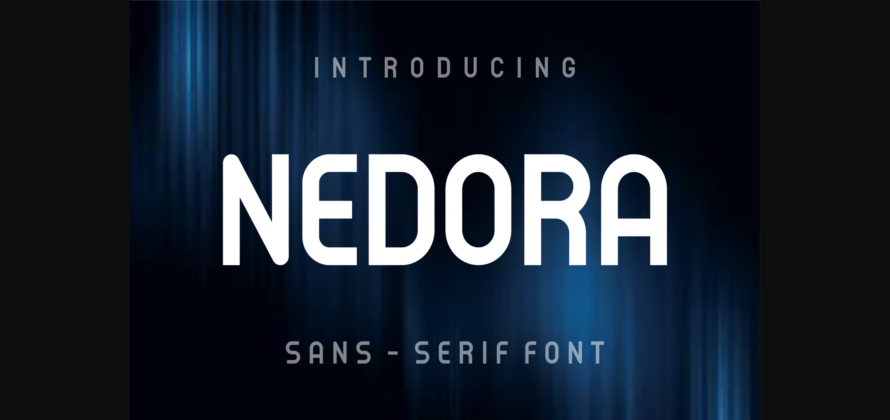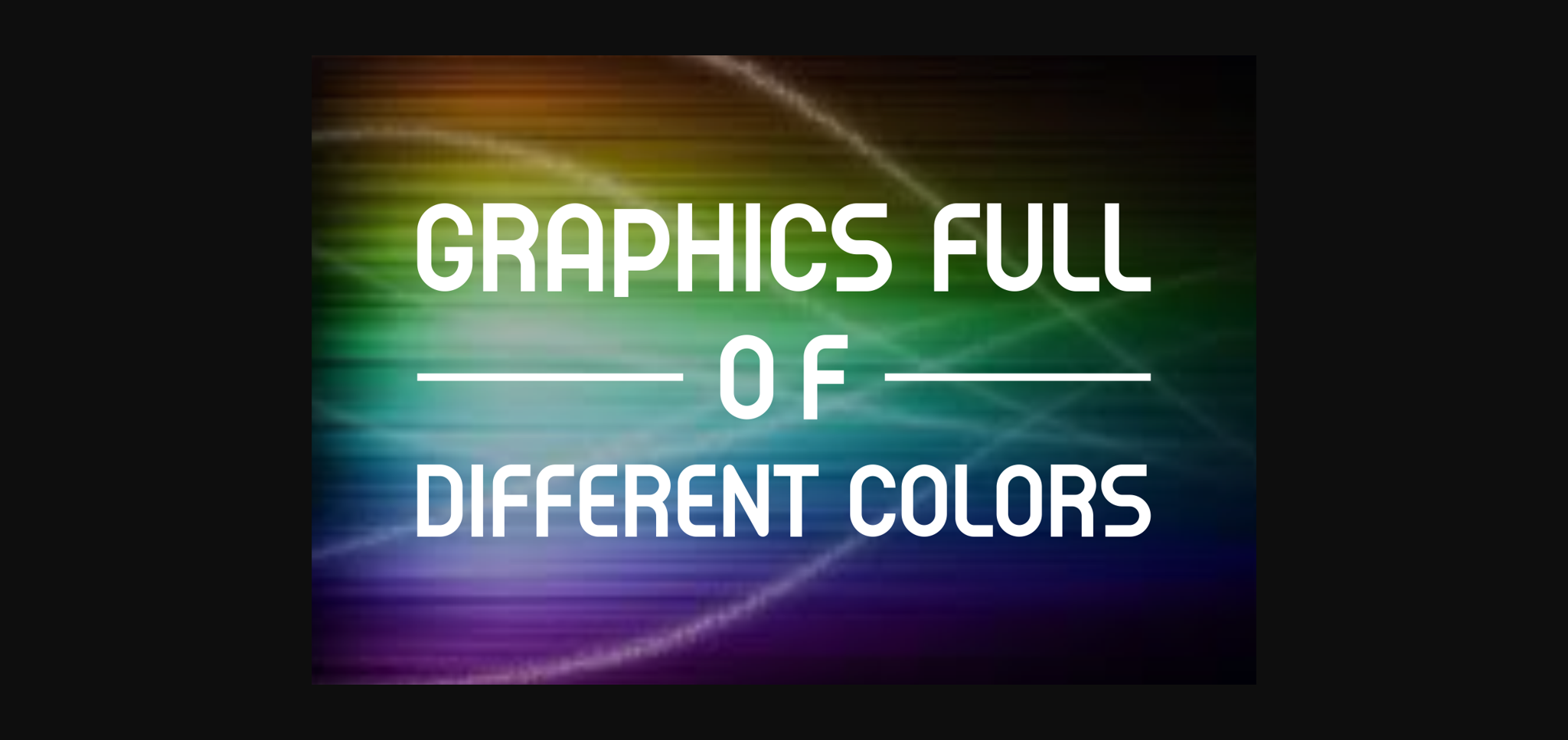
About Nedora Font
Nedora is a cool and unique sans serif font. Fall in love with its incredibly distinct and timeless style and use it to create spectacular designs!